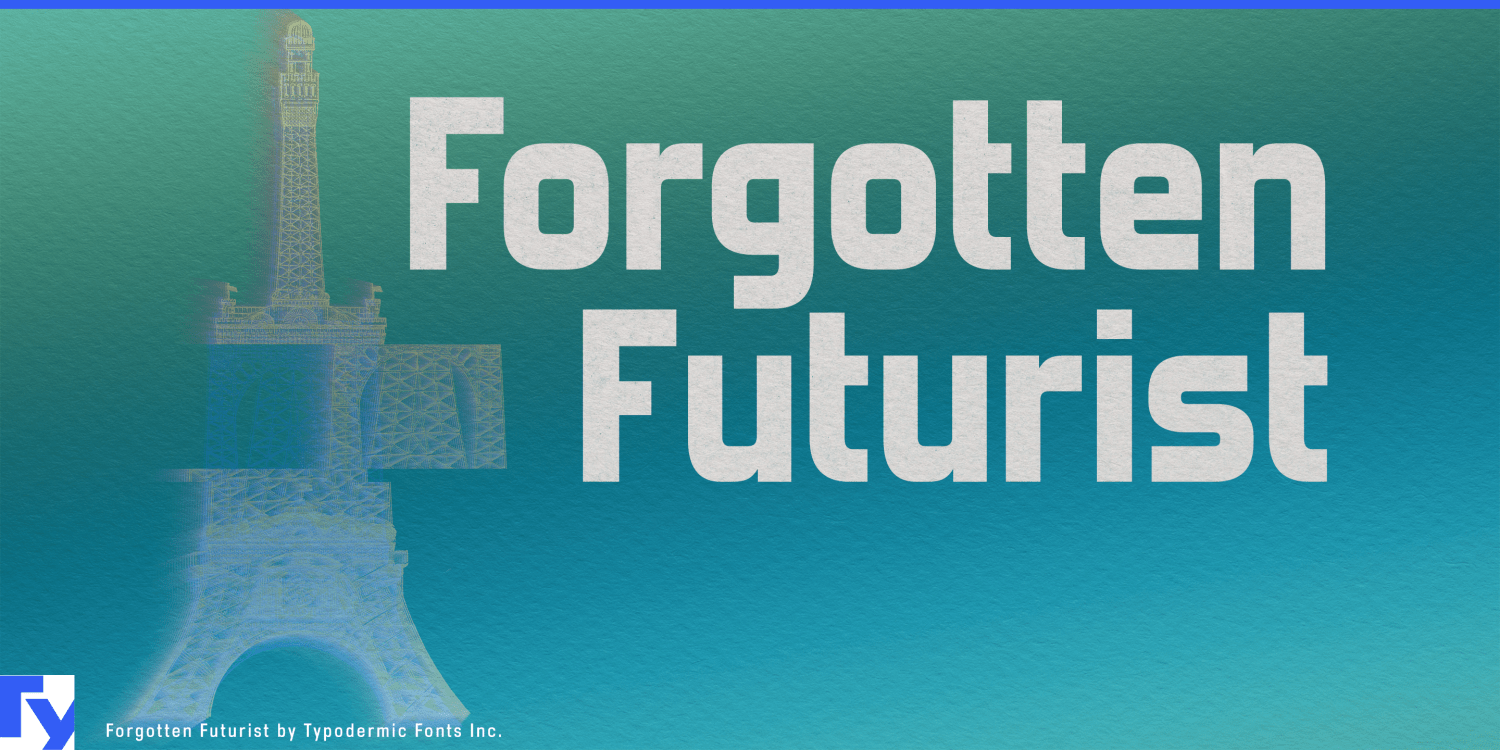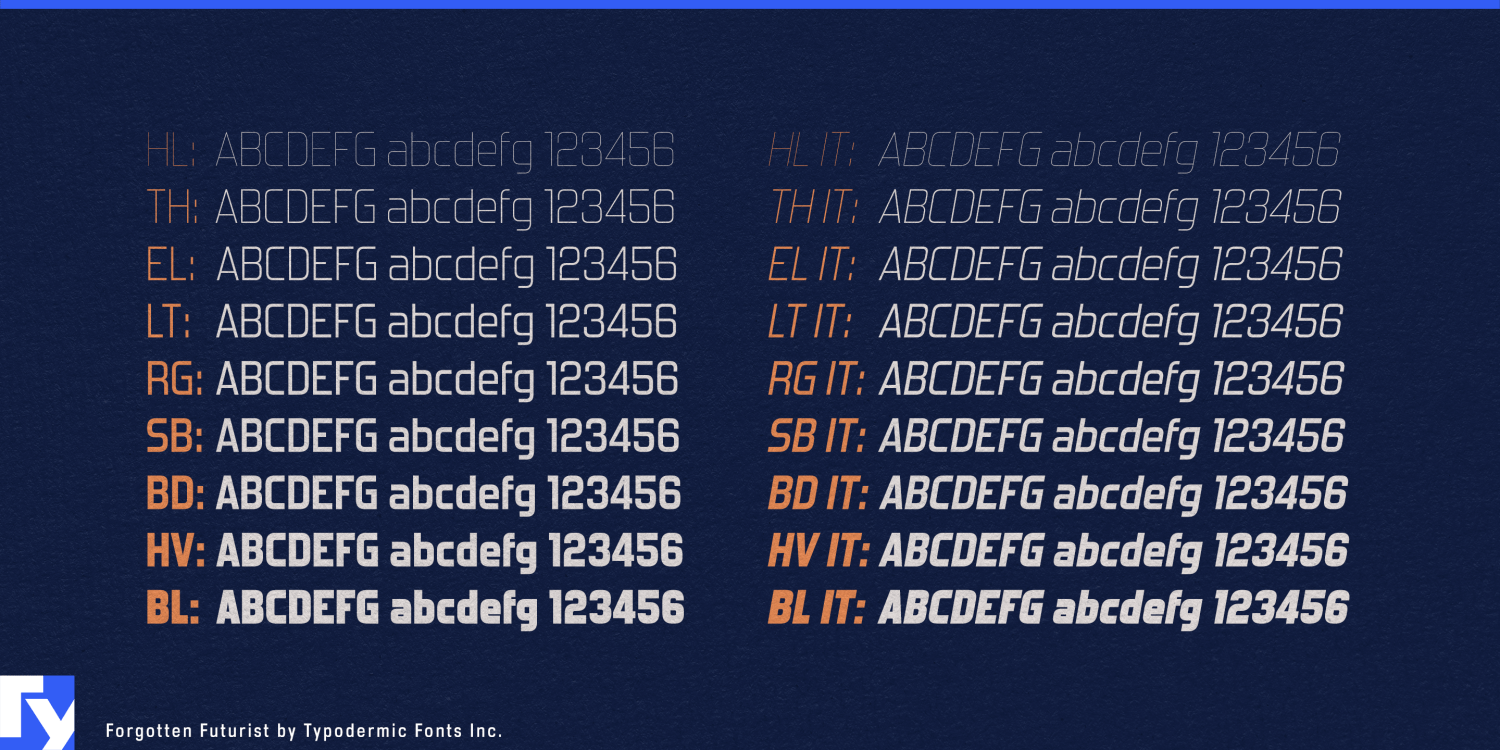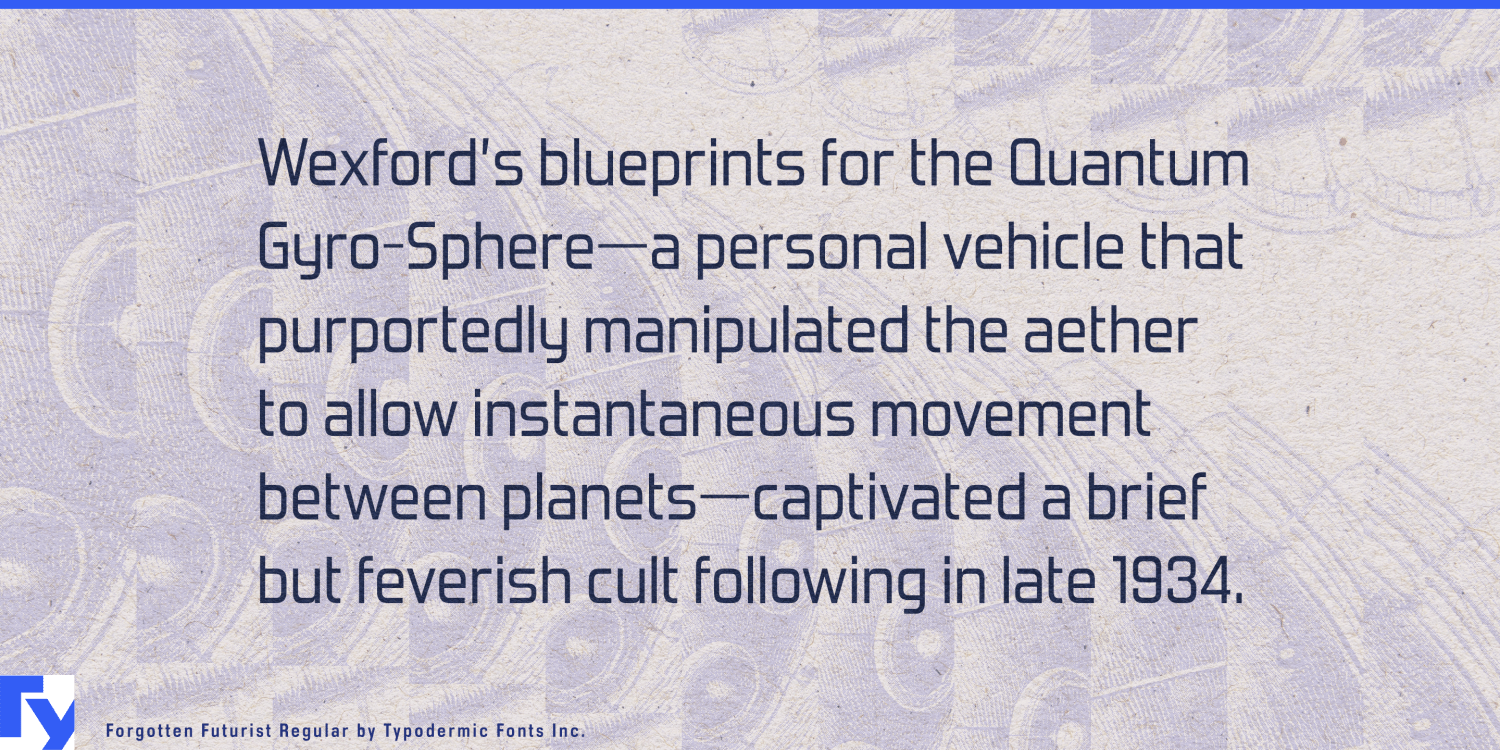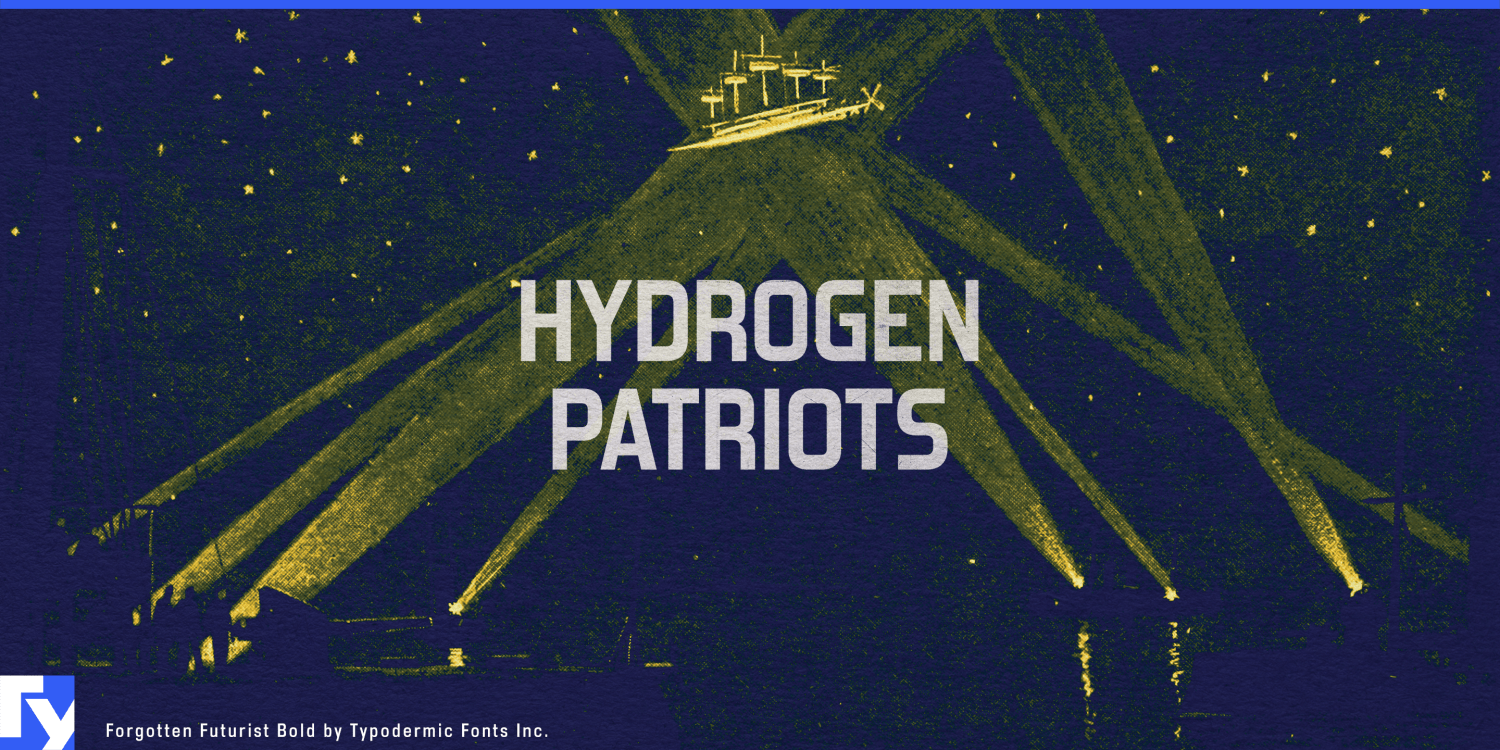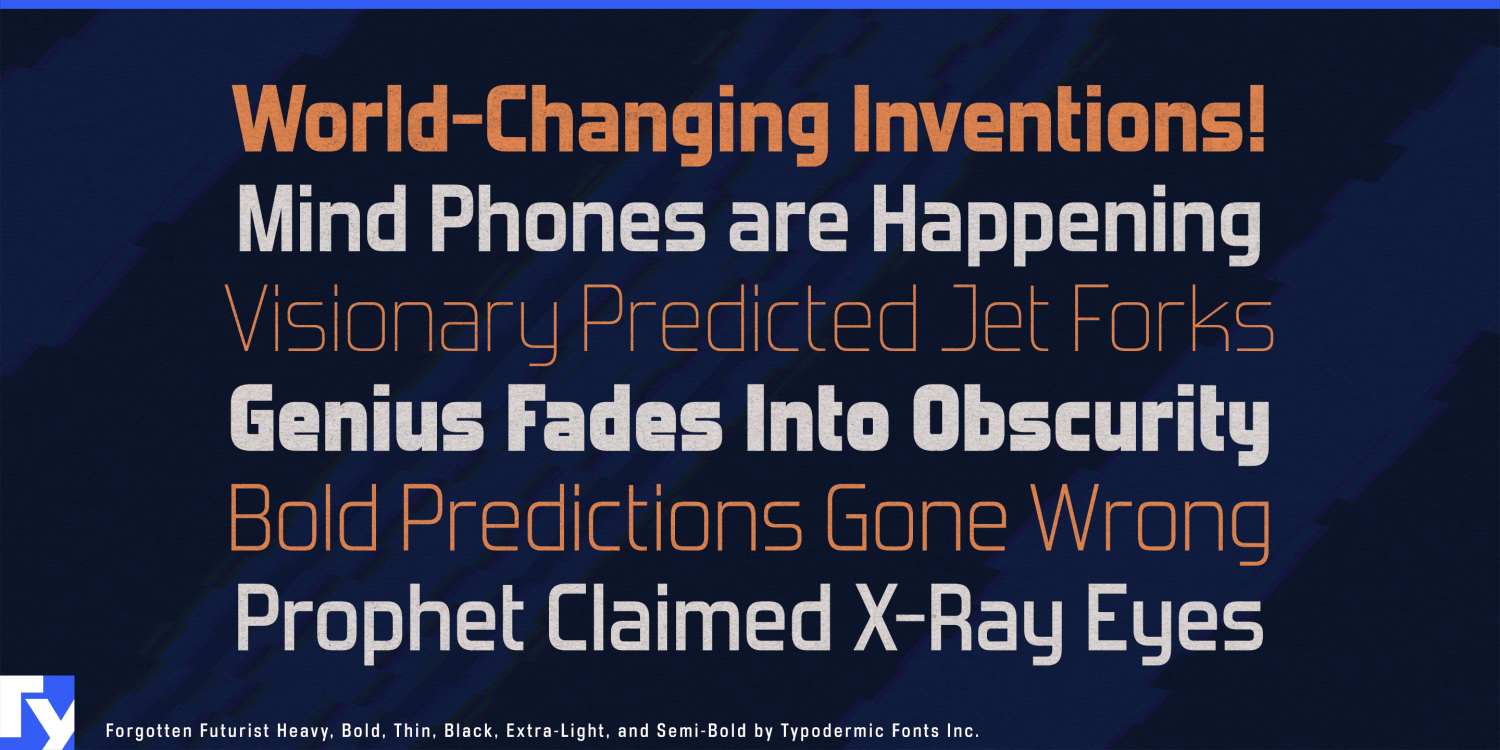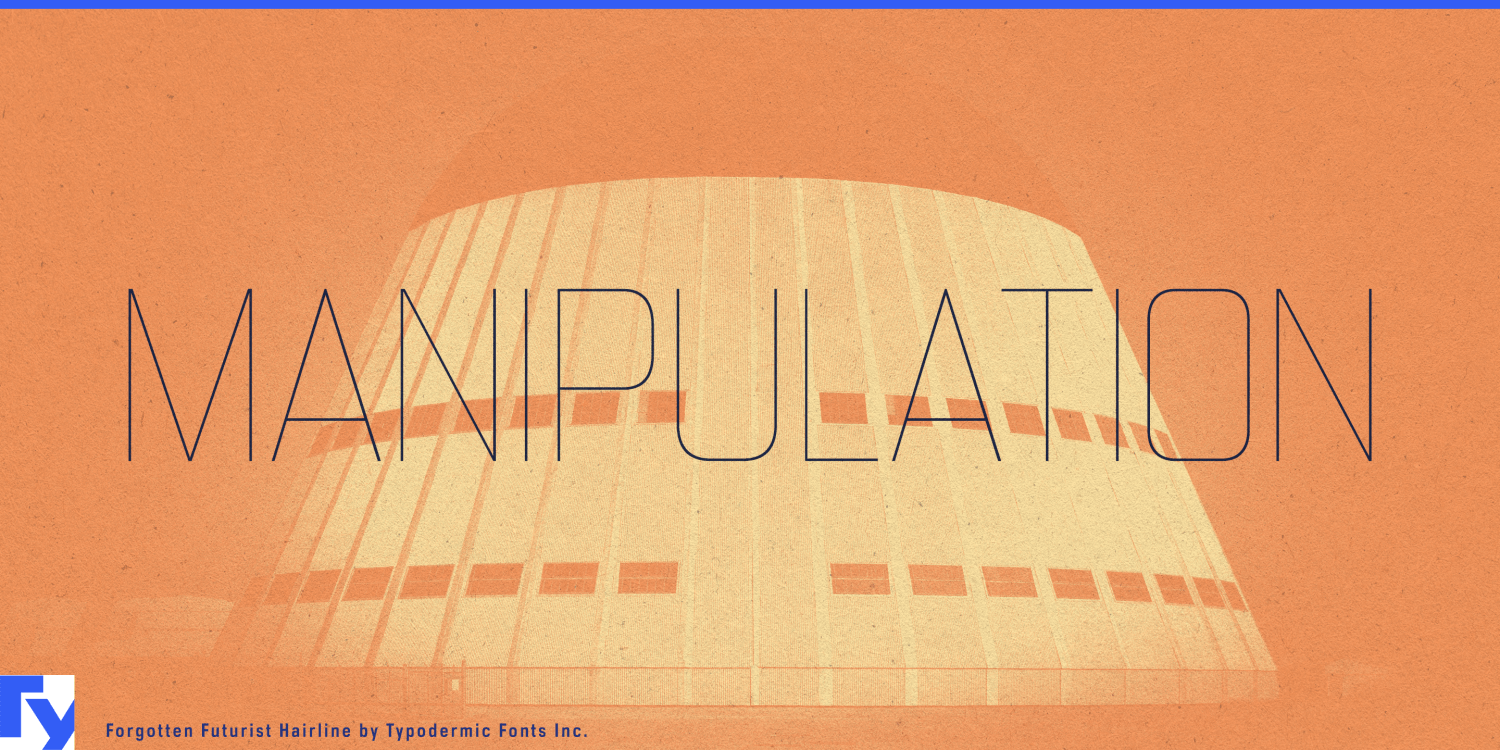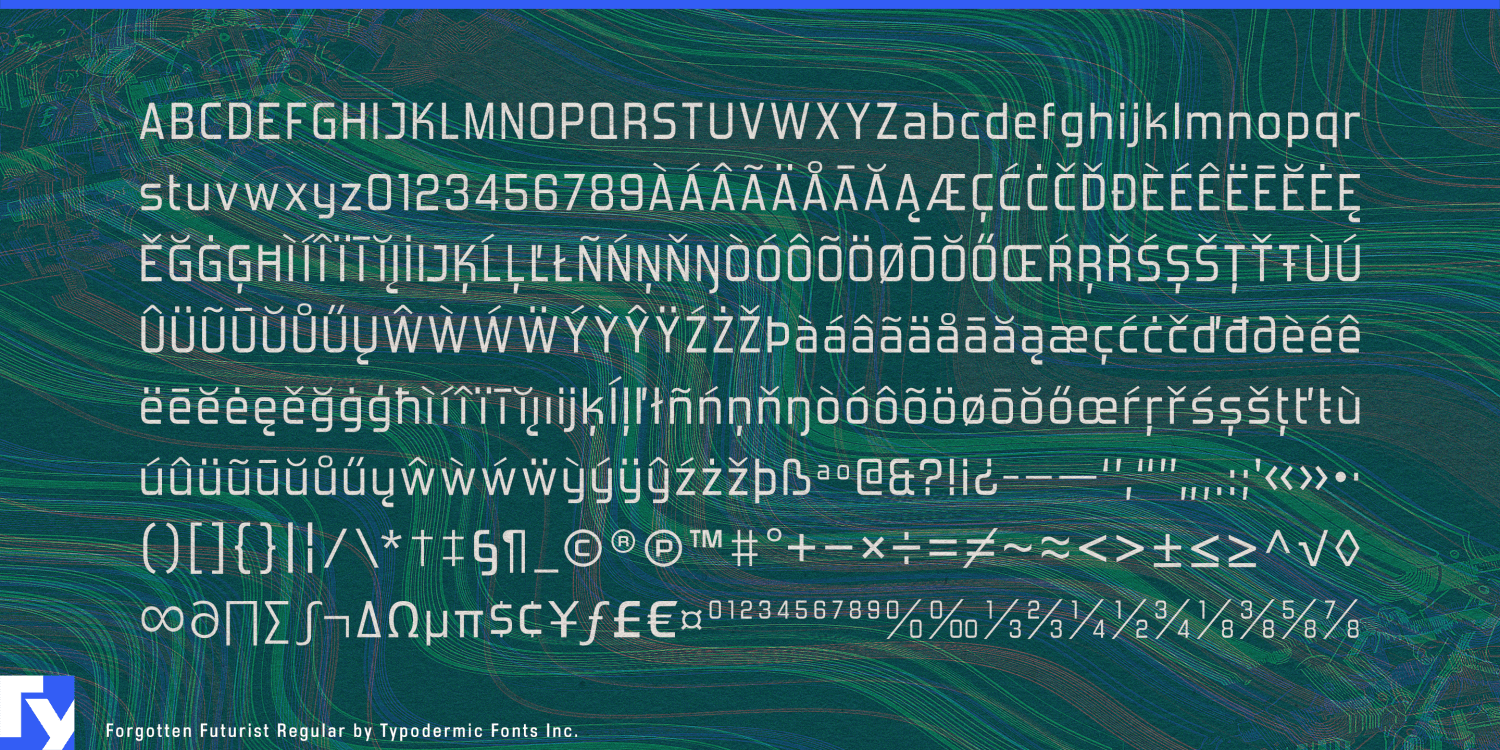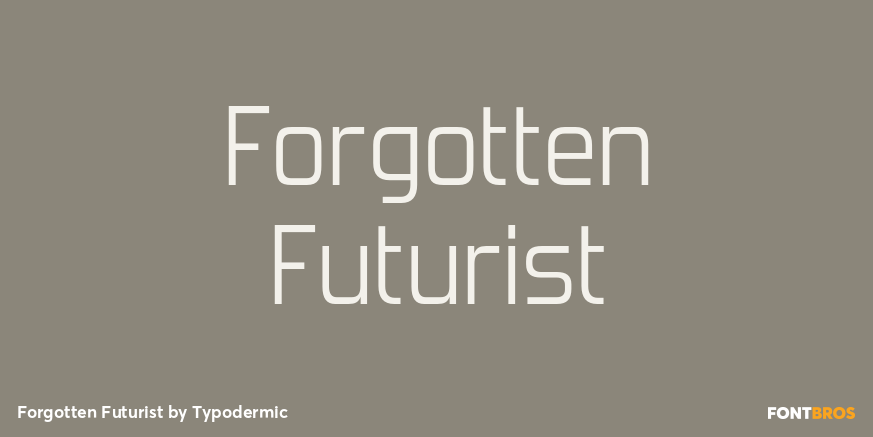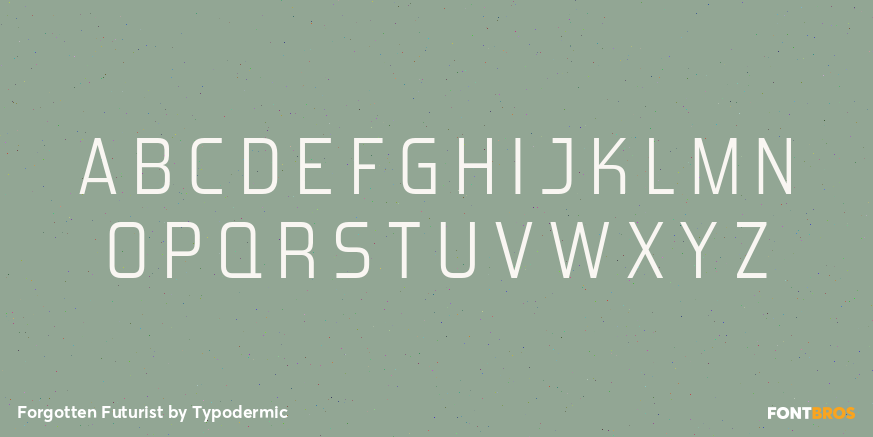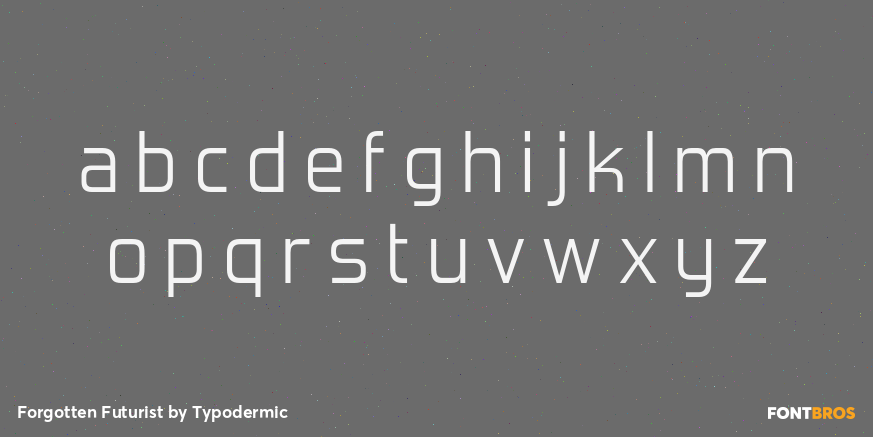
Forgotten Futurist
Font Family by Typodermic
Step into the time machine of typography with Forgotten Futurist—a typeface that captures the essence of an era when tomorrow seemed limitless. This industrial marvel seamlessly fuses vintage charm with cutting-edge design, transporting your creations to a world where neon dreams and high-tech aspirations collide.
Forgotten Futurist’s DNA is rooted in the optimistic futurism of the 1960s and ’70s, an age when technology promised to reshape reality. Its letterforms evoke the electric anticipation of a world on the brink of digital revolution, yet remain strikingly relevant in today’s design landscape. The rounded technical corners and sleek lines aren’t just nostalgic nods—they’re timeless elements that speak to both retro enthusiasts and contemporary minimalists alike. Versatility is Forgotten Futurist’s middle name. With a spectrum of ten styles ranging from the whisper-thin Ultra-Light to the commanding Black, and their italic counterparts, this typeface offers a playground for designers. Whether you’re crafting a sci-fi book cover, branding a tech startup, or designing a retro-inspired user interface, Forgotten Futurist provides the typographic toolkit to realize your vision.
But Forgotten Futurist isn’t content with just looking good—it’s a linguistic powerhouse too. It fluently communicates across a vast array of Latin-based European writing systems, ensuring your retro-futuristic message resonates from the fjords of Norway to the plains of Hungary. This typeface doesn’t just cross borders; it transcends them, uniting diverse languages under its banner of nostalgic innovation. Choose Forgotten Futurist when you want your design to simultaneously evoke the past and envision the future. It’s more than a font—it’s a portal to an alternate timeline where the dreams of yesterday fuel the designs of tomorrow. Let Forgotten Futurist be the voice of your boldest ideas, turning ordinary text into a retro-futuristic spectacle that captivates and inspires.
With Forgotten Futurist, you’re not just designing—you’re time-traveling. Embrace the paradox of a future inspired by the past, and watch as your creations become timeless.